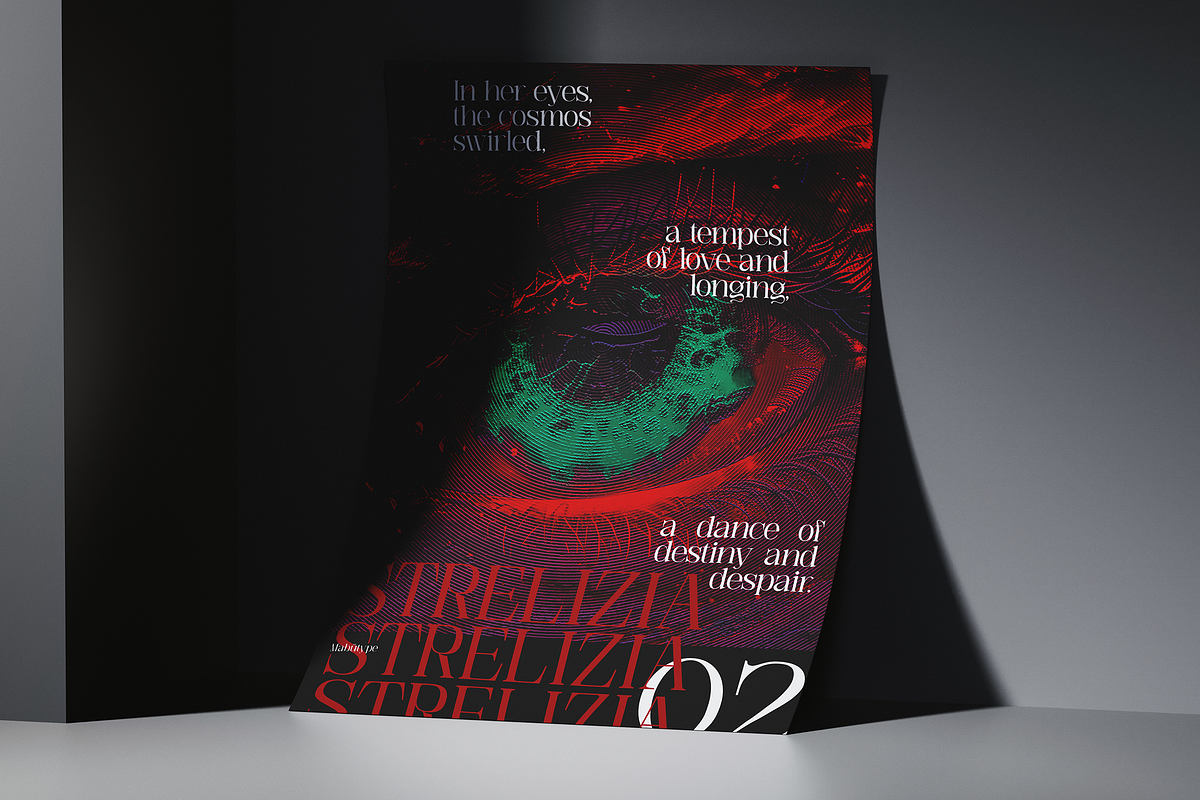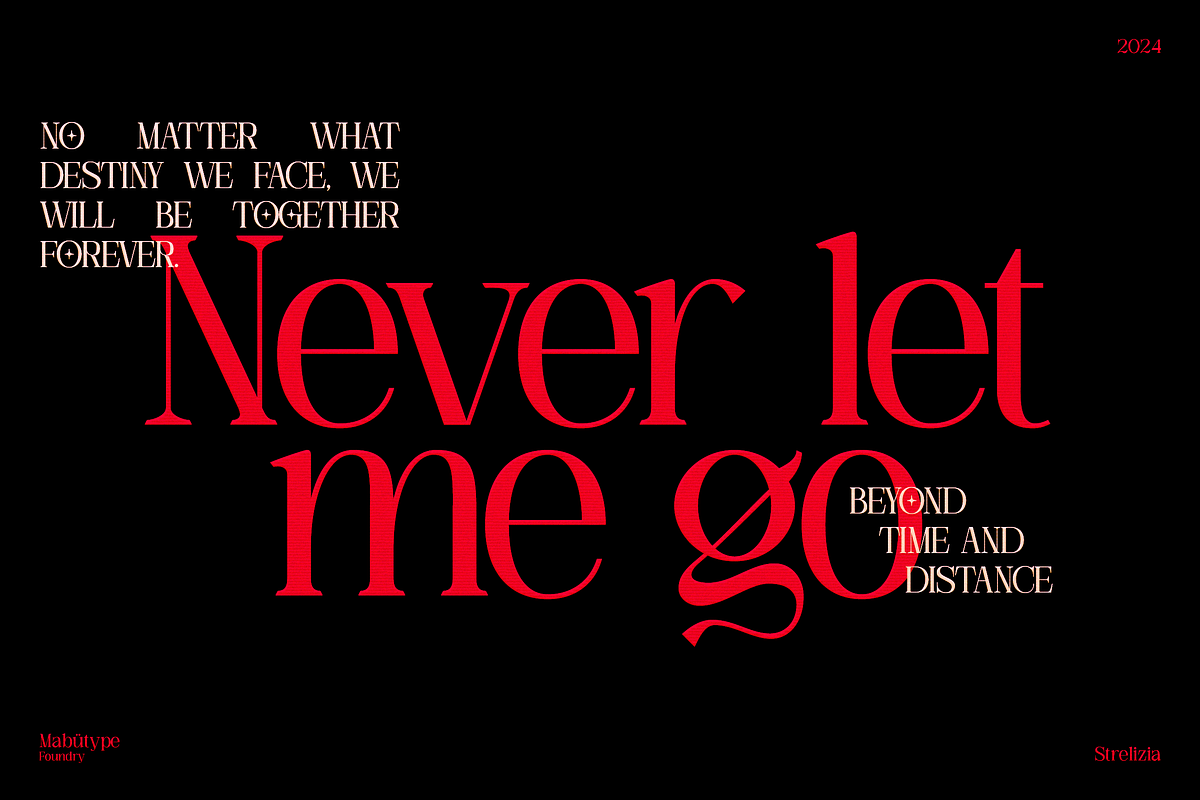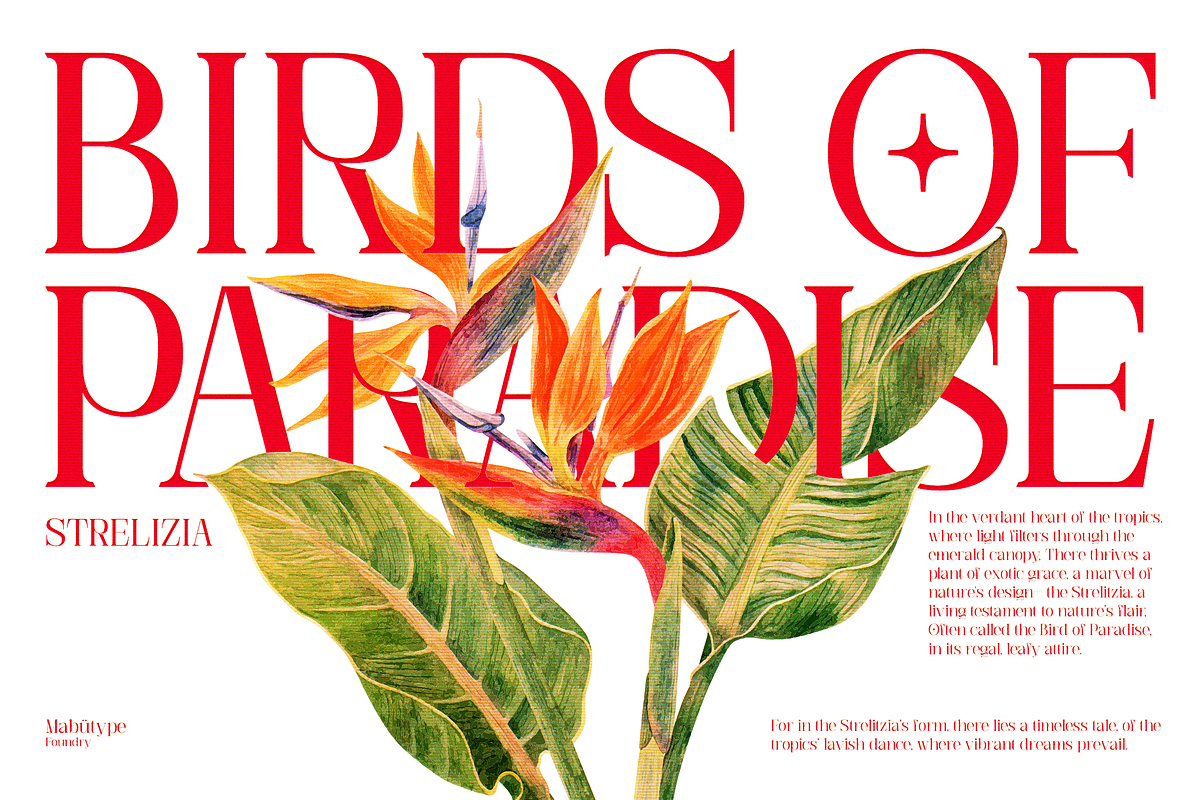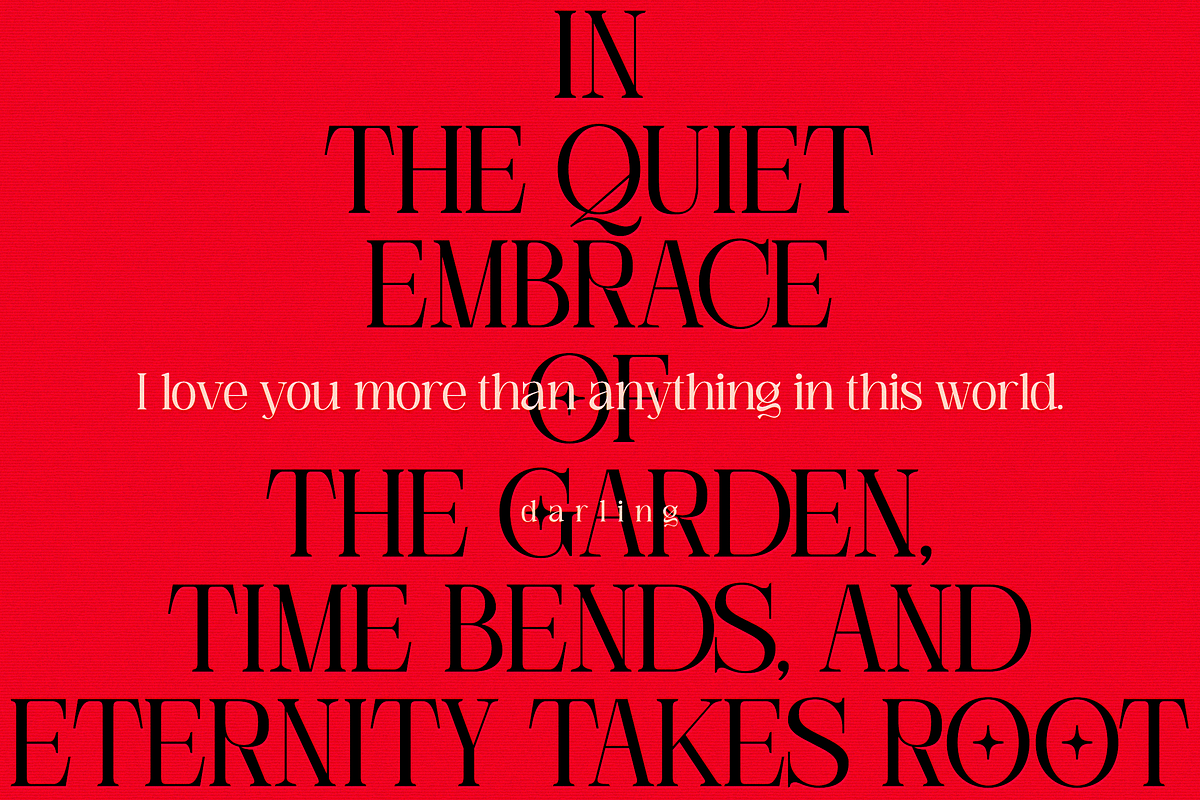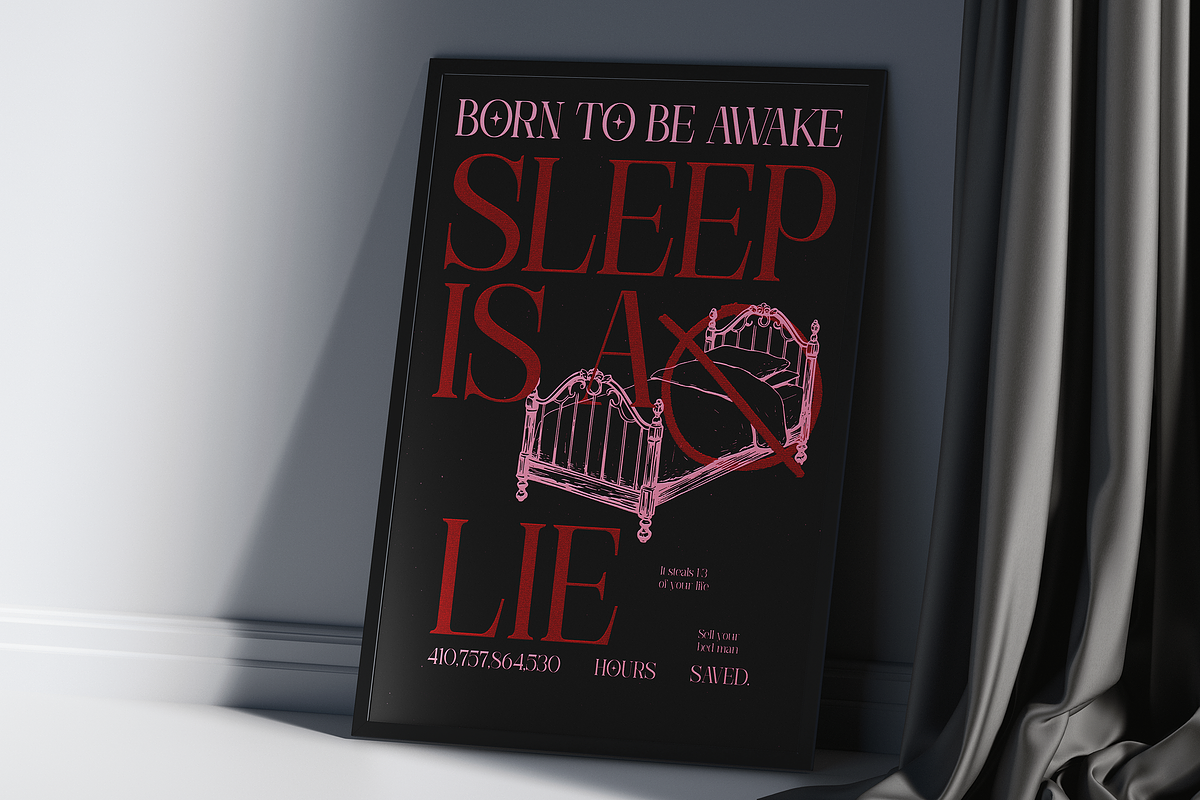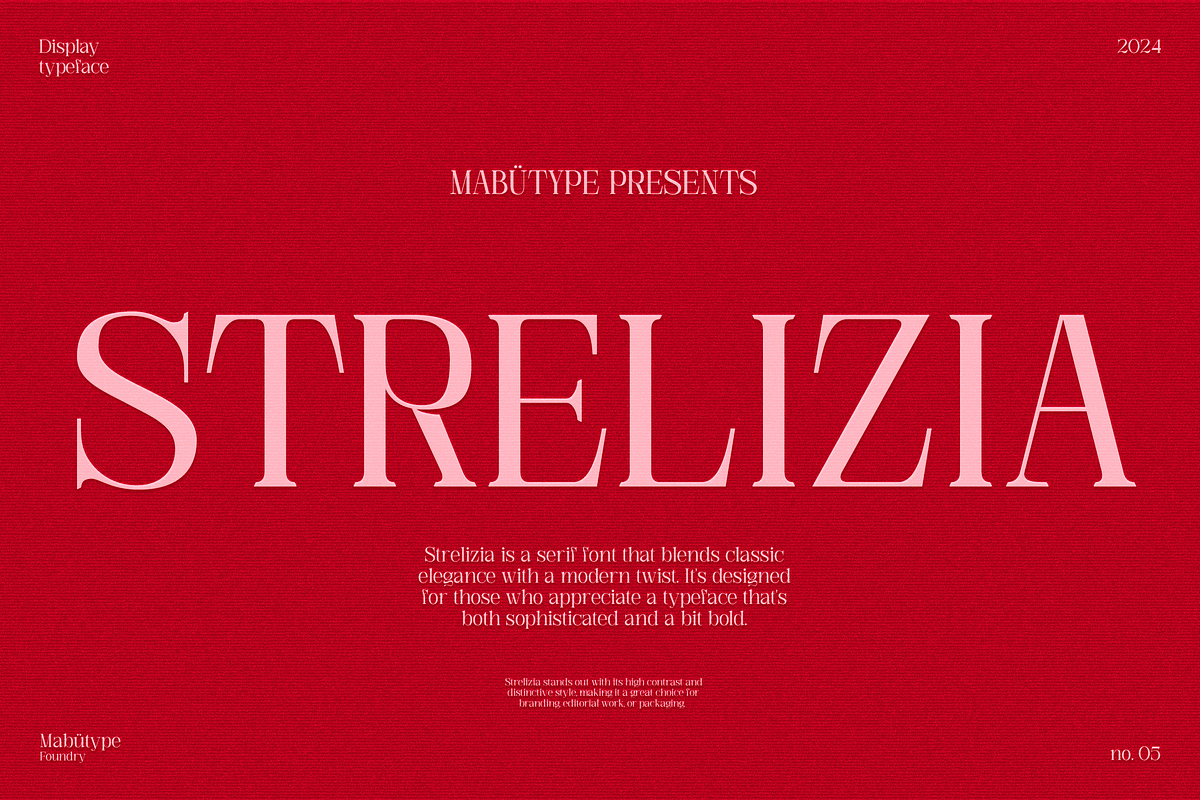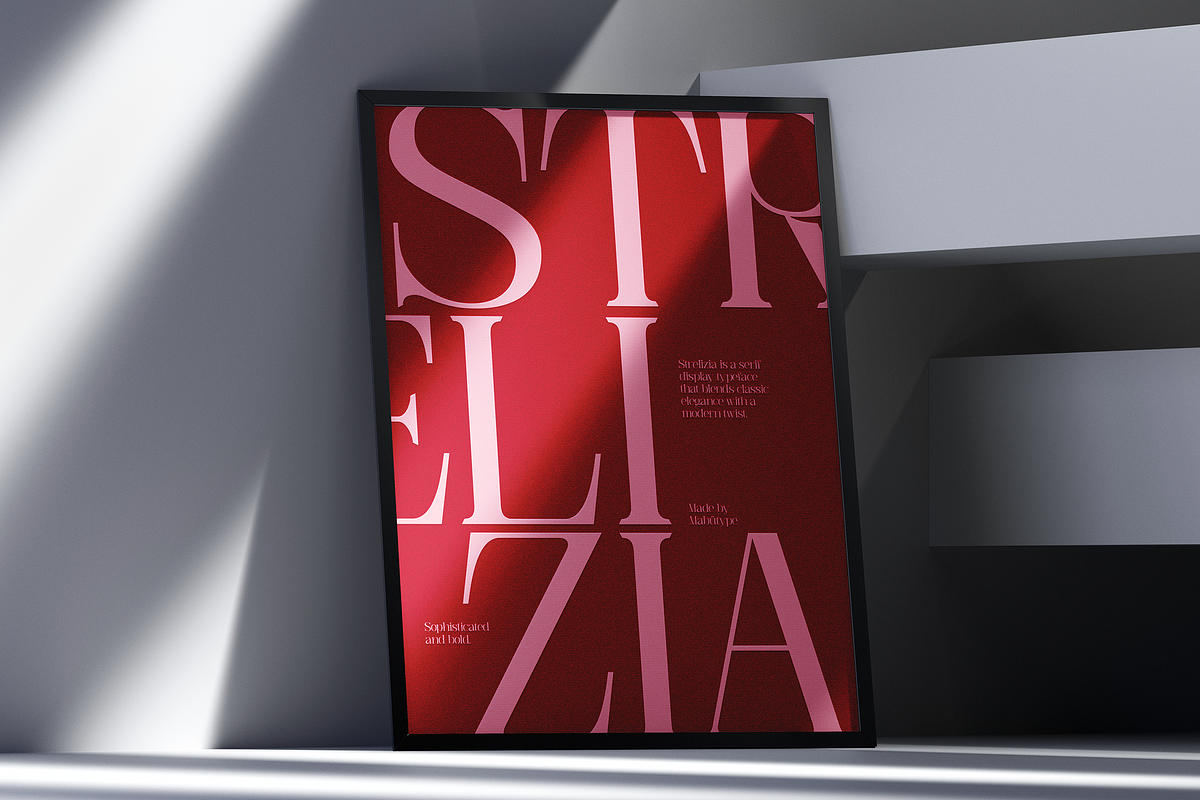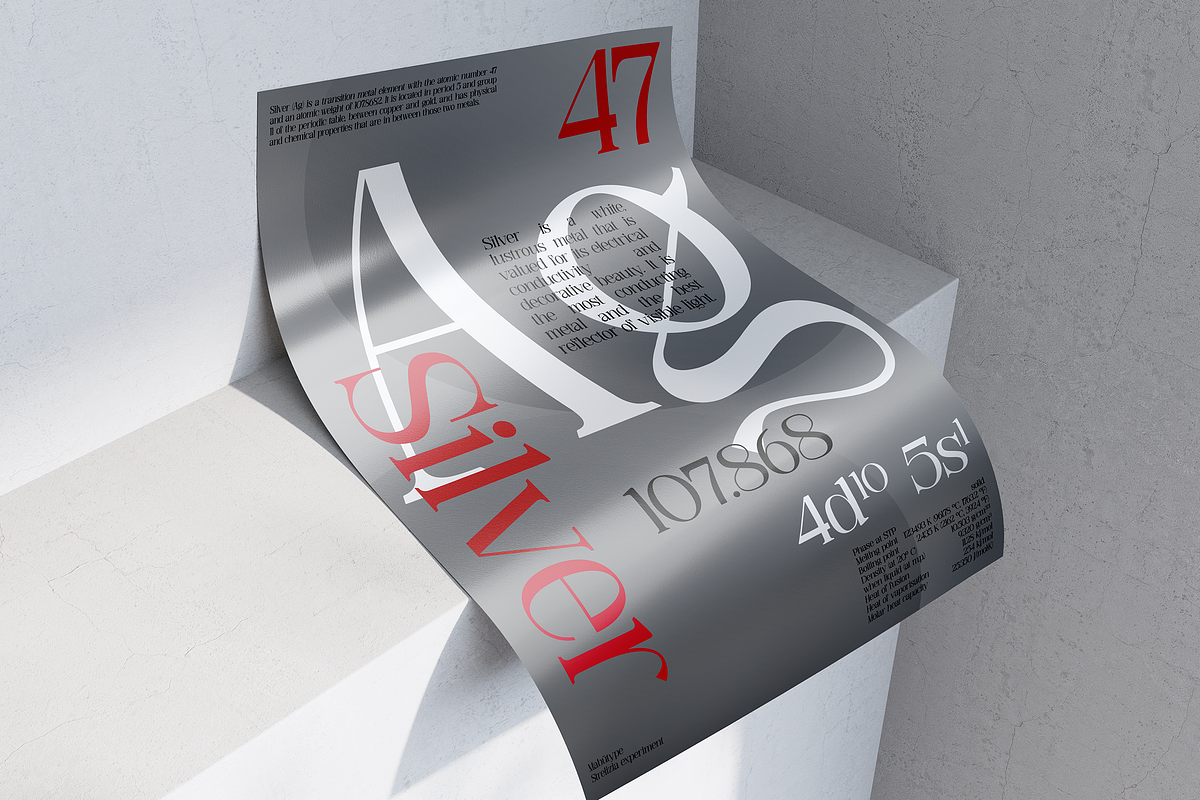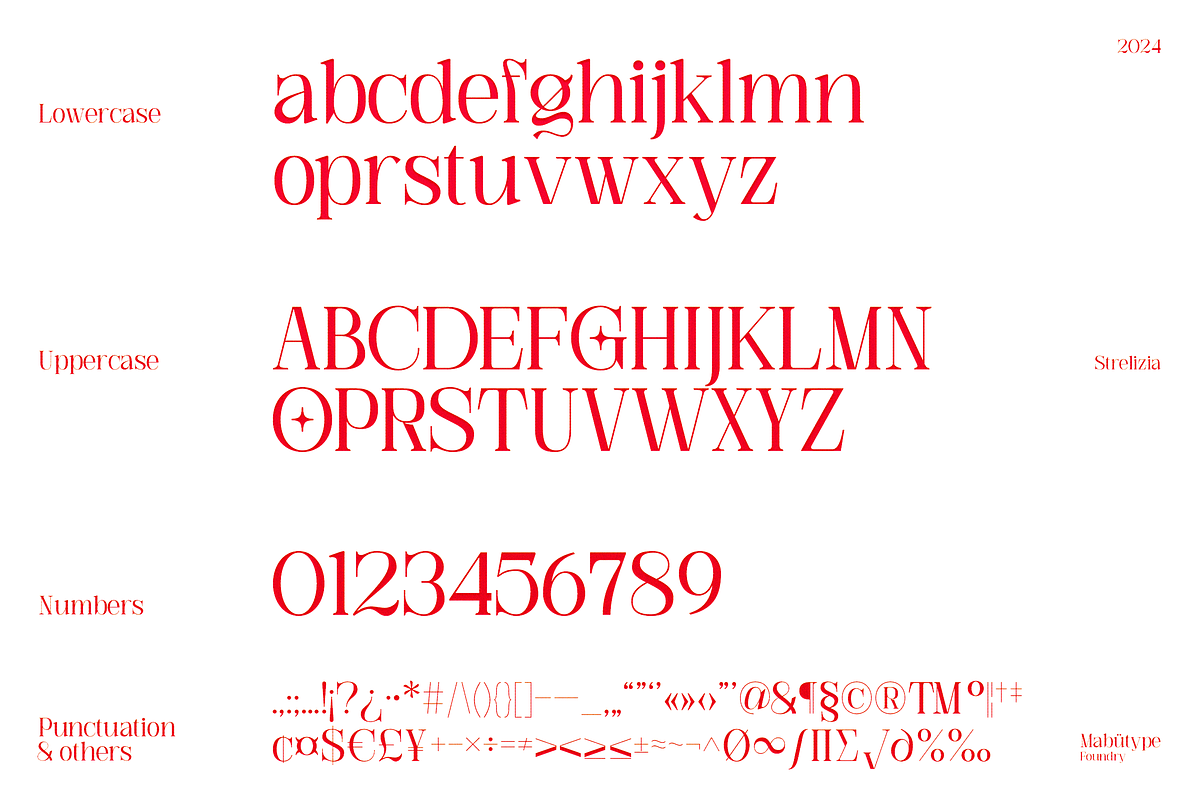
Strelizia - Display Typeface
Strelizia is a serif display typeface that blends classic elegance with a modern twist. It's designed for those who appreciate a typeface that's both sophisticated and a bit bold. Strelizia stands out with its high contrast and distinctive style, making it a great choice for branding, editorial work, or packaging.